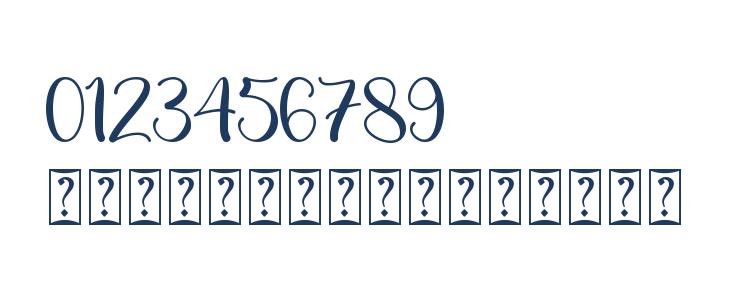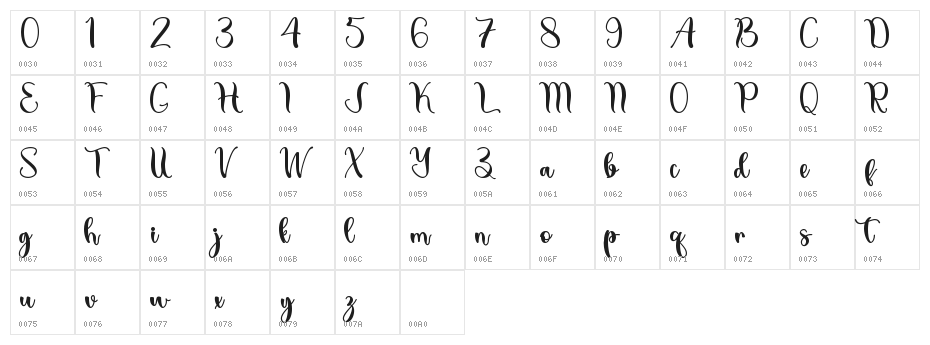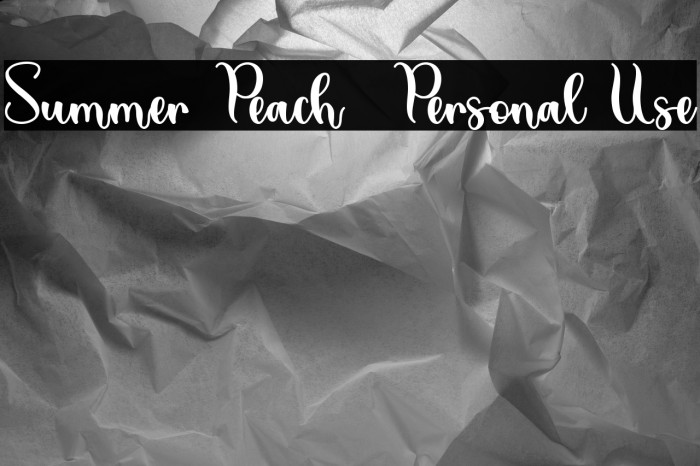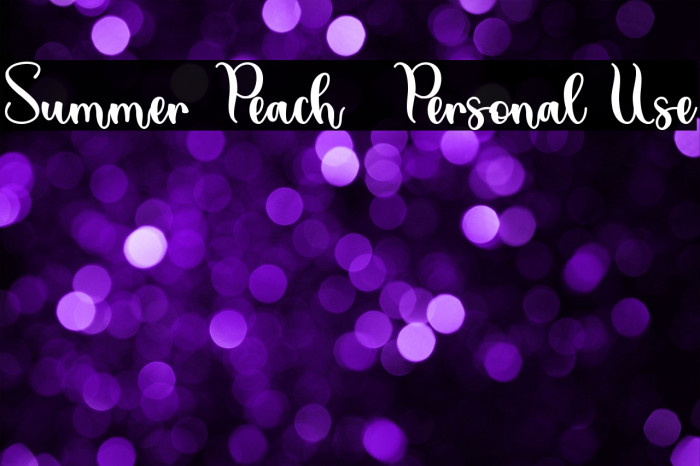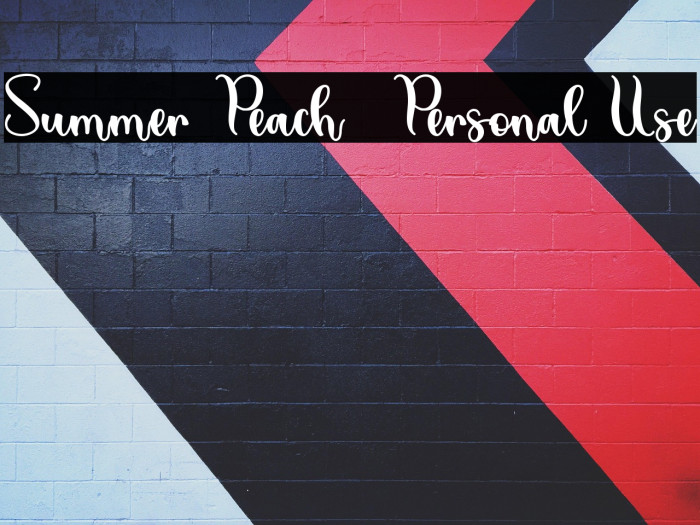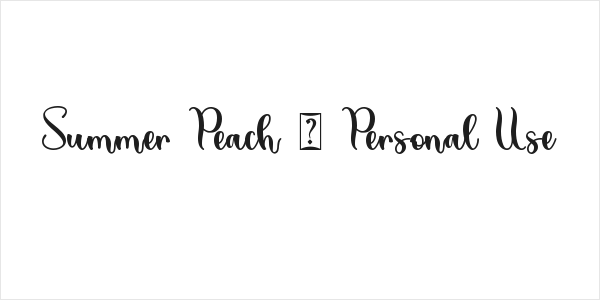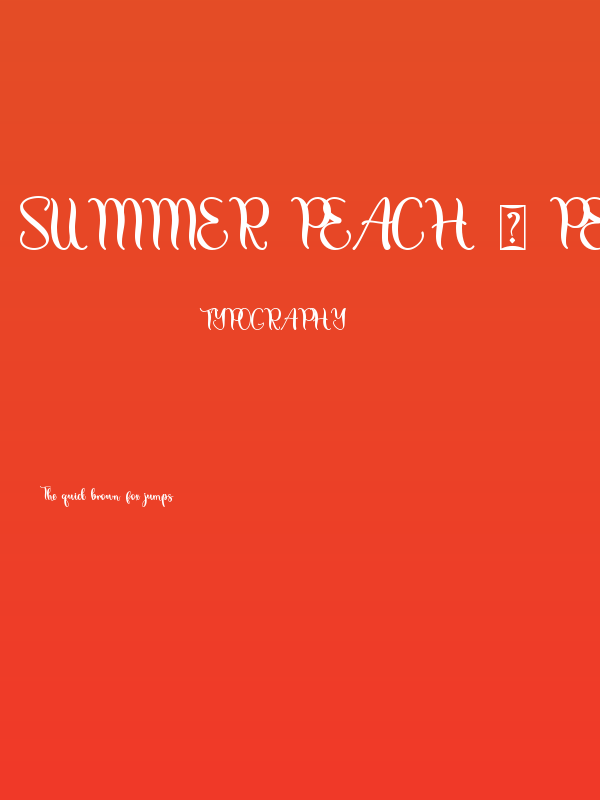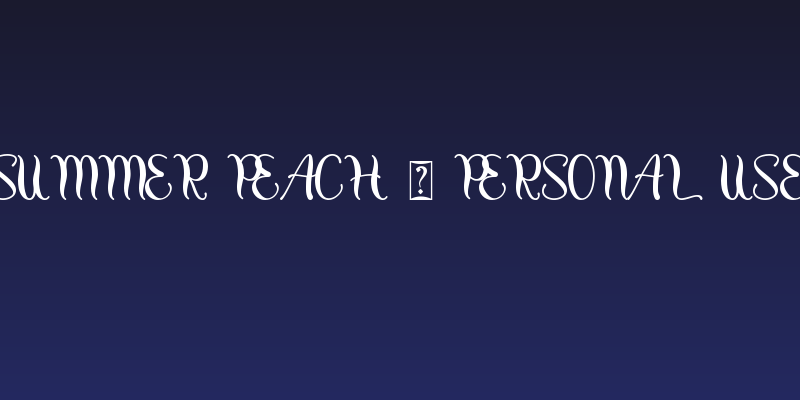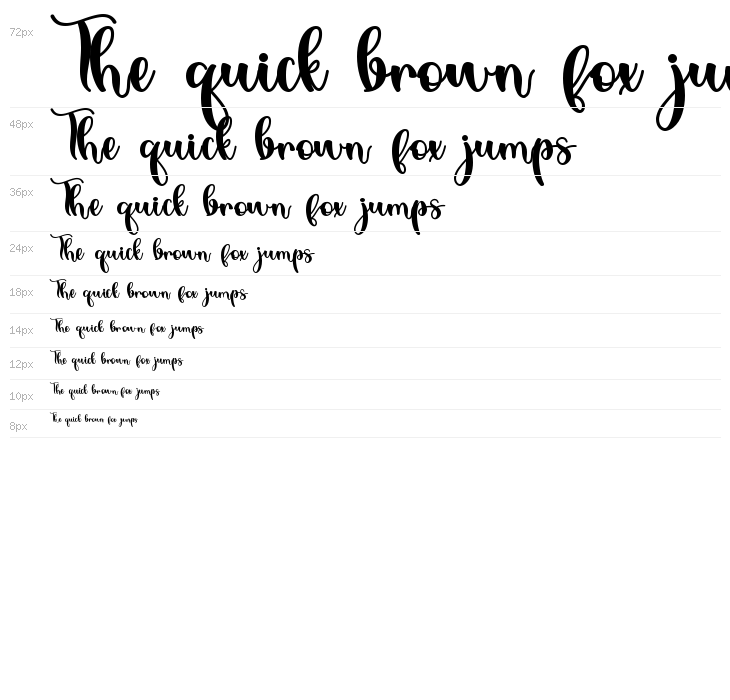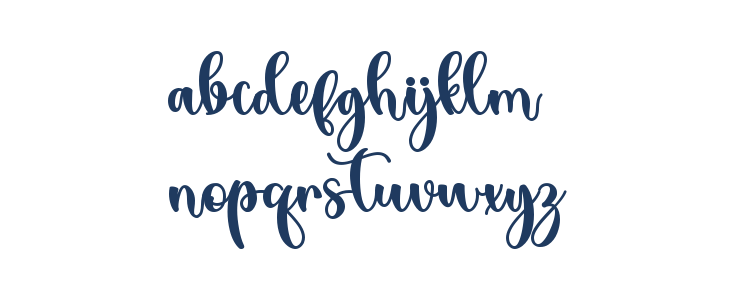
Summer Peach - Personal Use Font
Summer Peach - Personal Use Description
This font features a lively and playful script style with a handwritten appearance. The characters are elegantly curved, with a flowing and connected design that gives it a whimsical and artistic feel. The uppercase letters are bold and expressive, while the lowercase letters maintain a consistent fluidity. The numerals are distinct and maintain the same playful style, making them easily recognizable. Special characters are integrated seamlessly, adding to the font's versatility. The overall design is both charming and sophisticated, suitable for a variety of creative applications.
Use CaseLogos, Invitations, Decorative Text
Proposed ProjectsIdeal for wedding invitations, greeting cards, branding projects, and social media graphics.